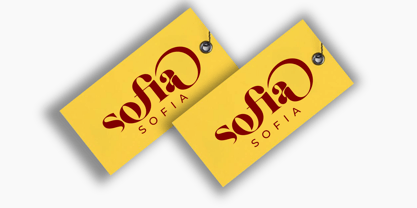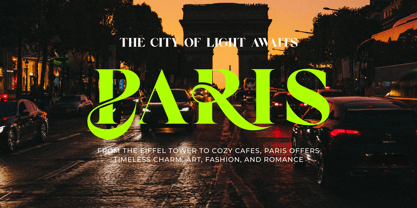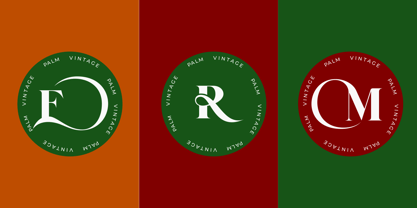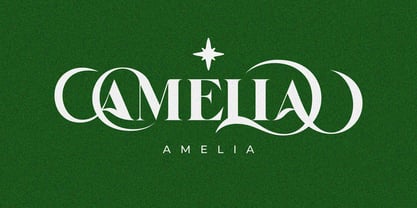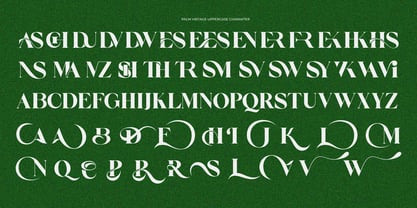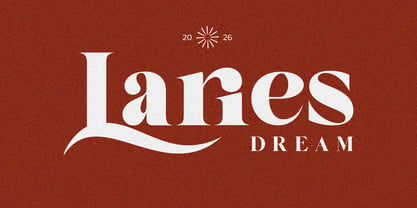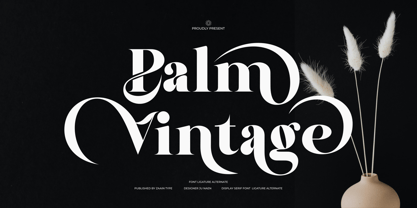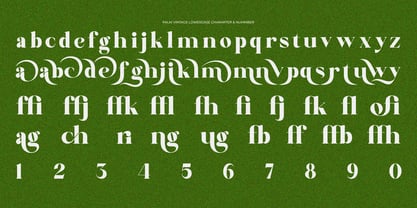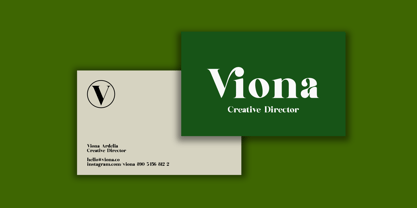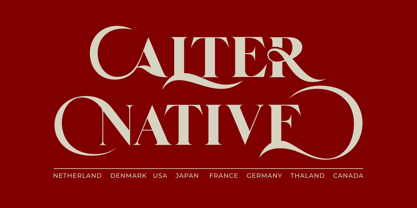
Palm Vintage
The Palm Vintage Font Family was designed by Ju Naen and published by Zaain Type. Palm Vintage contains 2 styles and family package options. More about this family
Palm Vintage is a classic serif font with a warm vintage character. Inspired by timeless typography from past eras, it features balanced thick–thin contrast, refined serif details, and elegant letter proportions. Its retro yet timeless appearance blends seamlessly with a sense of sophistication, making Palm Vintage ideal for editorial design, premium packaging, brand logos, magazine headlines, and visual projects that embrace heritage and luxury aesthetics. This font delivers a strong, classy, and story-rich personality in every typographic composition